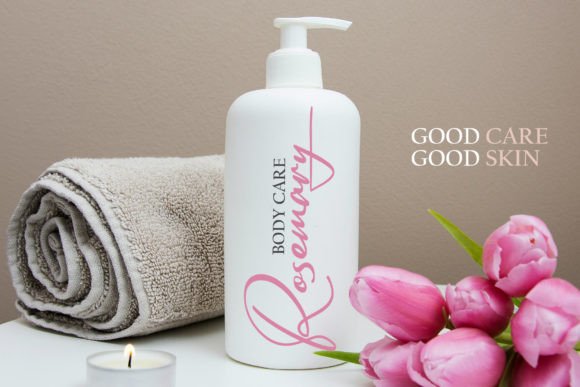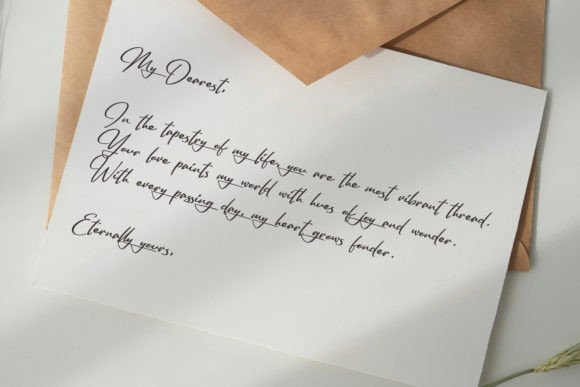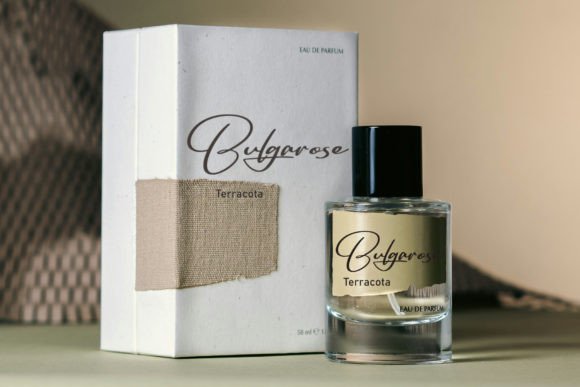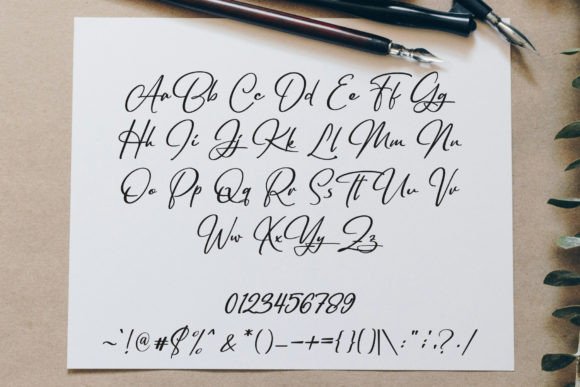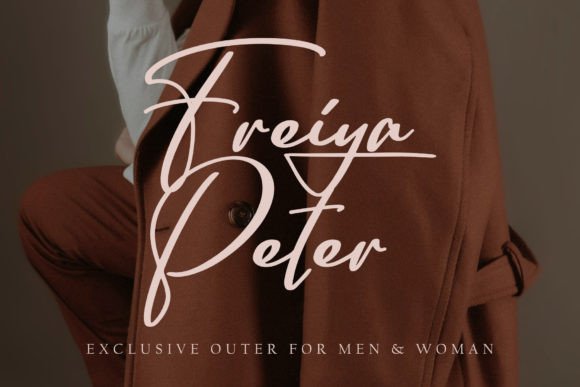
Bilyonair Font: Elevate Your Designs with a Touch of Handwritten Elegance
In the world of digital design, fonts play a crucial role in conveying the tone and personality of a brand or project. For those seeking to add a personal, human touch to their creations, the Bilyonair font is an excellent choice. This handwritten font is designed to bring an authentic, signature-like feel to various design projects, making it perfect for crafters, designers, and anyone looking to add a unique flair to their work.
What Makes Bilyonair Font Special?
Bilyonair is a handwritten font that stands out for its authentic character. It mimics the natural flow and imperfections of handwriting, giving it a personal and approachable feel. This font is not just a collection of letters; it’s a way to infuse your designs with personality and warmth. Whether you’re working on wedding invitations, thank you cards, quotes, greeting cards, logos, or business cards, Bilyonair can elevate your project with its elegant, cursive strokes.
One of the key advantages of the Bilyonair font is its versatility. It can be used across a wide range of design projects that require a handwritten touch. Here are some of the areas where Bilyonair truly shines:
• Wedding Invitations: Add a romantic and personal touch to your wedding invitations. Bilyonair’s elegant strokes make it perfect for conveying the joy and intimacy of the occasion.
• Thank You Cards: Express gratitude with style. The font’s warm and friendly feel makes it ideal for thank you cards, adding a personal touch to your messages.
• Quotes: Make your quotes stand out with Bilyonair. The font’s unique character ensures that your inspirational or thought-provoking quotes are presented in a visually appealing way.
• Greeting Cards: From birthday wishes to holiday greetings, Bilyonair can help you create cards that are both personal and memorable.
• Logos and Business Cards: For businesses looking to stand out, Bilyonair can add a touch of elegance and personality to logos and business cards, helping to create a lasting impression.
Why Designers and Crafters Love Bilyonair
Designers and crafters often seek fonts that can help them create unique and engaging projects. Bilyonair’s distinctive handwritten style makes it a favorite among creatives for several reasons:
• Customization: The font’s flexibility allows for a high degree of customization. Designers can adjust the size, color, and spacing to fit their project’s needs, ensuring a perfect fit every time.
• Uniqueness: In a sea of sans-serif and serif fonts, Bilyonair offers a refreshing change. Its unique style ensures that your designs stand out and capture the attention of your audience.
Tips for Using Bilyonair Font Effectively
To make the most of Bilyonair, consider the following tips:
• Pair with Complementary Fonts: For maximum impact, pair Bilyonair with fonts that complement its style. A simple sans-serif font can create a nice contrast and enhance readability.
• Experiment with Colors: Bilyonair looks stunning in a variety of colors. Don’t be afraid to experiment with different hues to find the one that best suits your project’s theme.
• Pay Attention to Spacing: Adjusting the spacing between letters and lines can significantly affect the overall look of your design. Play around with different settings to achieve the desired effect.
Font Name Billyonair Font
Author Fontlicious
Bilyonair font is a versatile and elegant handwritten font that can add a personal touch to a wide range of design projects. Its authentic character and stunning appearance make it an excellent choice for designers and crafters looking to create unique and engaging designs. Whether you’re working on wedding invitations, quotes, logos, or business cards, Bilyonair is sure to elevate your project with its beautiful, cursive strokes. So, if you’re looking to add a bit of elegance and personality to your designs, give Bilyonair a try.